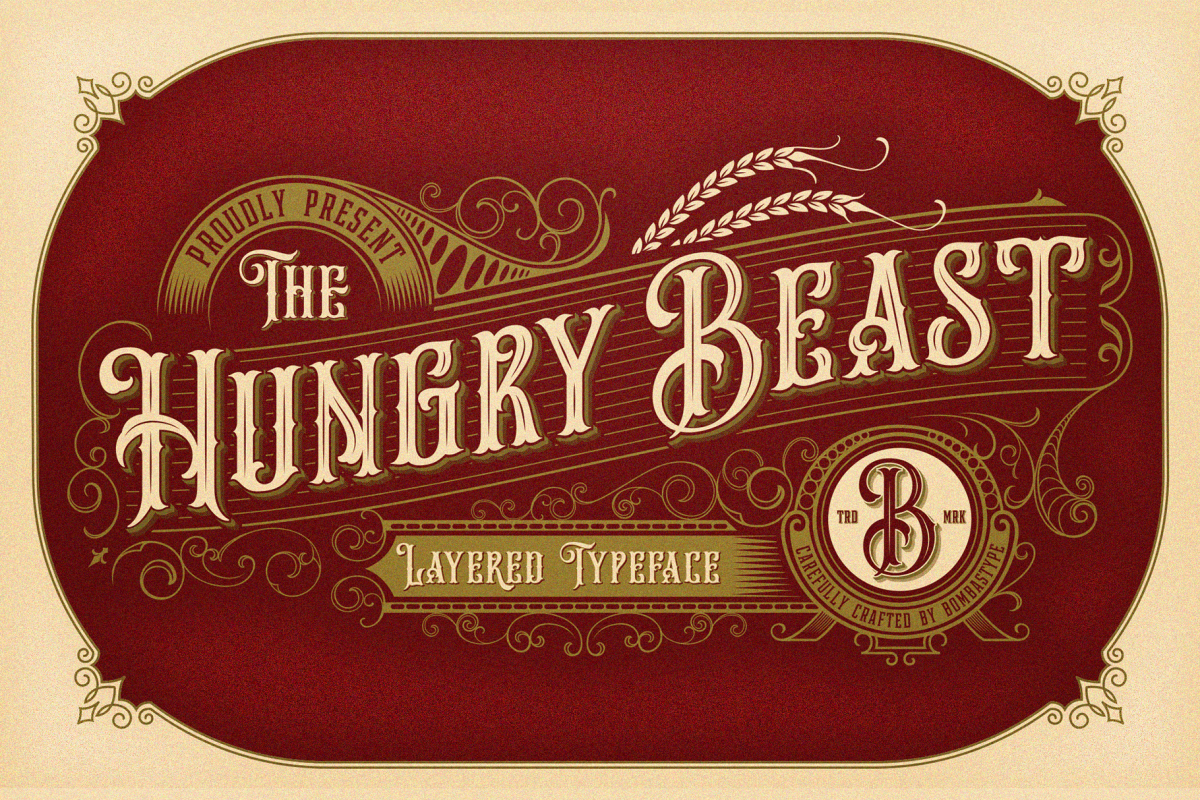
Hungry Beast Layered Family
Hungry Beast is a Victorian theme font. With another old fashioned feels on it, because we were very passionate with that kind of typeface style. This typeface will suitable for many display purposes like you could see in our previews for the work samples. And don't forget about the Layer system, because who hate layers typeface? So let's try this Beast asap.